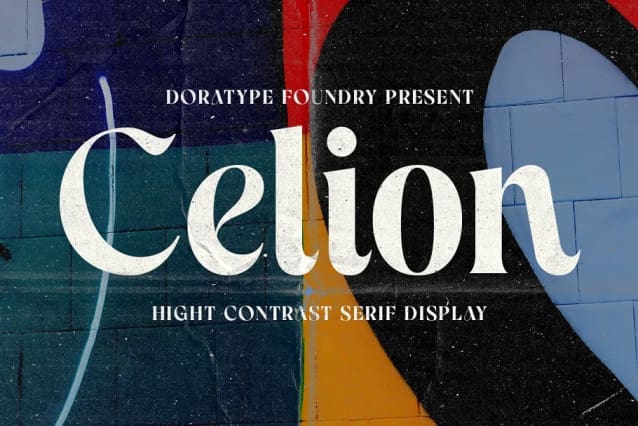
Celion Font
Celion Font is a serif display type with a nonsensical feel. modern high contrast with bright positive character. The clean shapes and slightly conical edges of the letters create a welcoming atmosphere in any design. Including ligatures, custom alternative glyphs, the Celion font is perfect for headlines, magazines, logotypes, food packages, advertisements and many others.